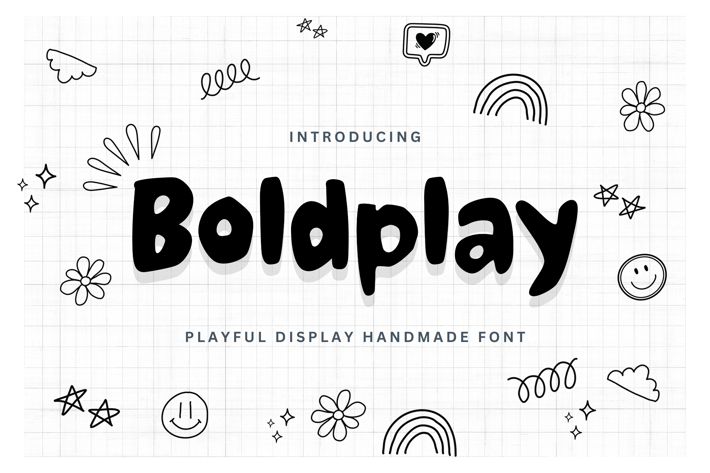
Boldplay - Playful Display Handmade Font
Boldplay is a playful and vibrant handmade font that brings a sense of joy and dynamism to every design it graces. With its bold and spirited appearance, Boldplay is perfect for projects that demand a touch of fun and creativity.
Whether you're working on posters, logos, or any other design element, Boldplay's lively and charismatic style is sure to captivate your audience and leave a lasting impression. Embrace the playful spirit of design with Boldplay, and let your creativity flow freely with a font that embodies the essence of joy and liveliness.
Infuse joy and dynamism into your designs with Boldplay, the handmade font that brings a playful and vibrant touch to every project. With its bold and spirited appearance, Boldplay is an excellent choice for designs that require a sense of fun and creativity.
Whether you're creating posters, logos, or other design elements, Boldplay's lively and charismatic style is certain to captivate your audience and leave a memorable impression. Embrace the playful spirit of design with Boldplay, and let your creativity flow freely with a font that embodies the essence of joy and liveliness.